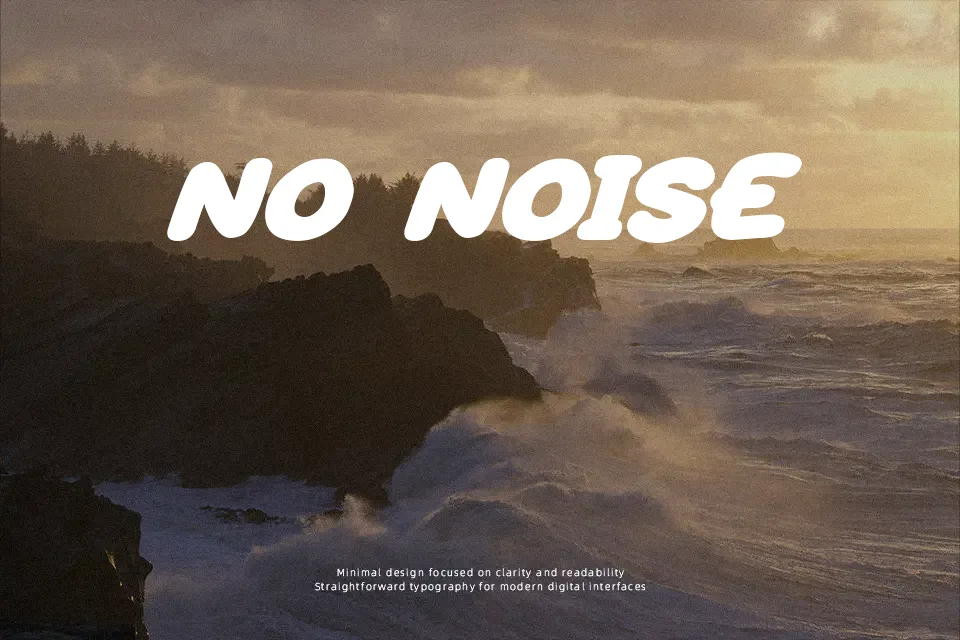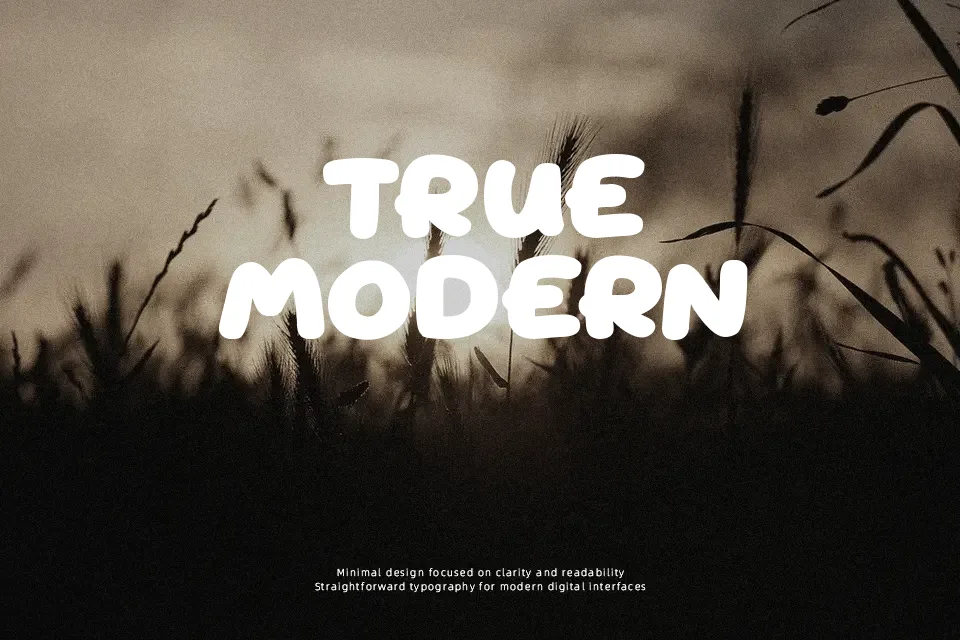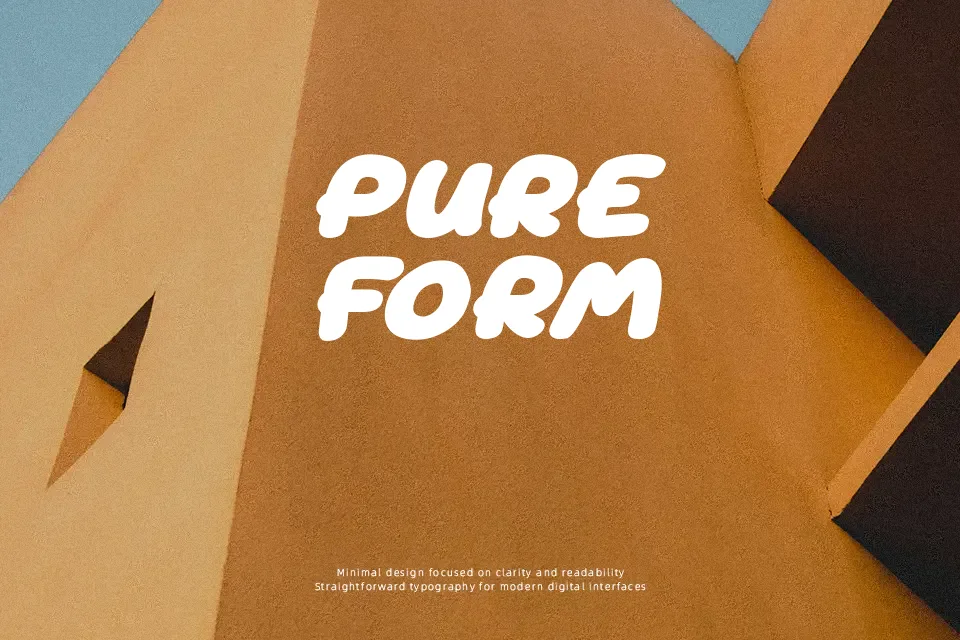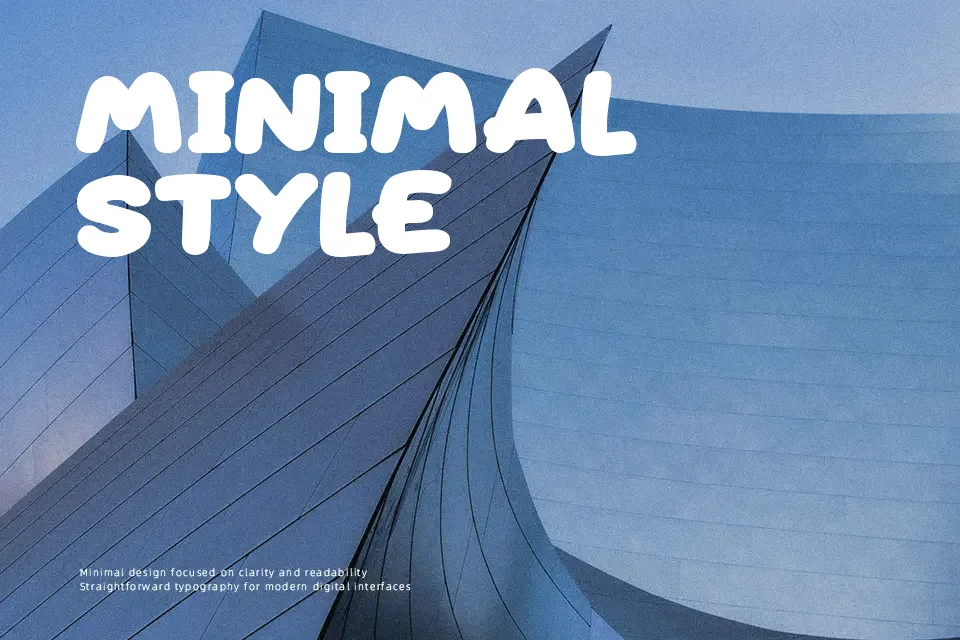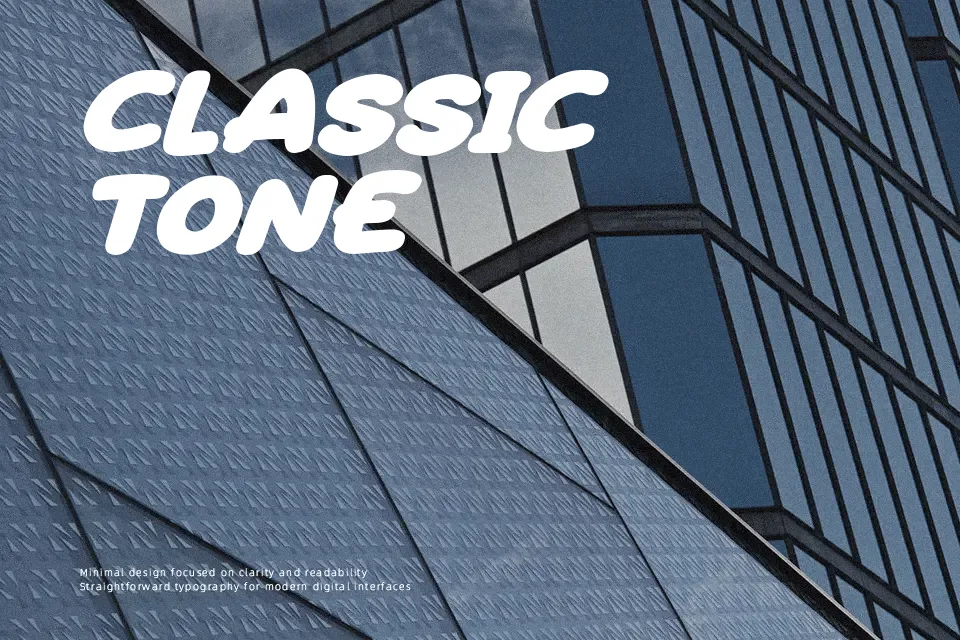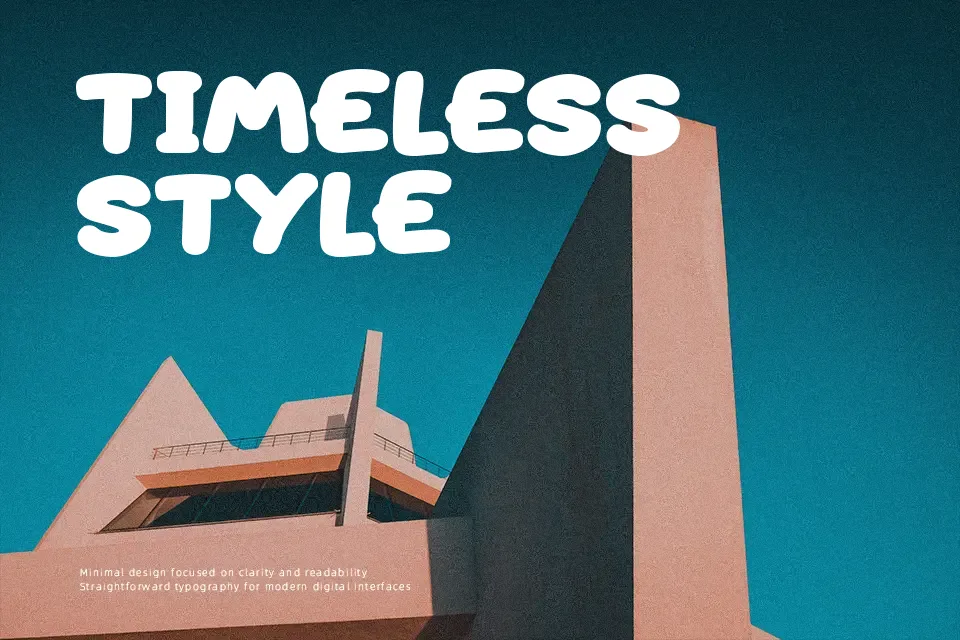
Superfats Font
Superfats Font uses thick, rounded letterforms with soft curves, wide counters, and a deliberately bulky display presence. The strokes appear consistently heavy, while the close visual rhythm helps short words form dense, attention-grabbing shapes. Uppercase and lowercase characters carry a similar inflated cartoon character, making the typeface more effective for headlines than for restrained layouts. It works well on kid-focused posters, snack packaging, and bold social graphics that need a friendly, oversized voice. The weight improves recognition at larger sizes, but compact forms and heavy strokes can become difficult to read in small text or extended passages.
Best For: children’s event posters,snack packaging headlines,playful logo treatments,social media graphics